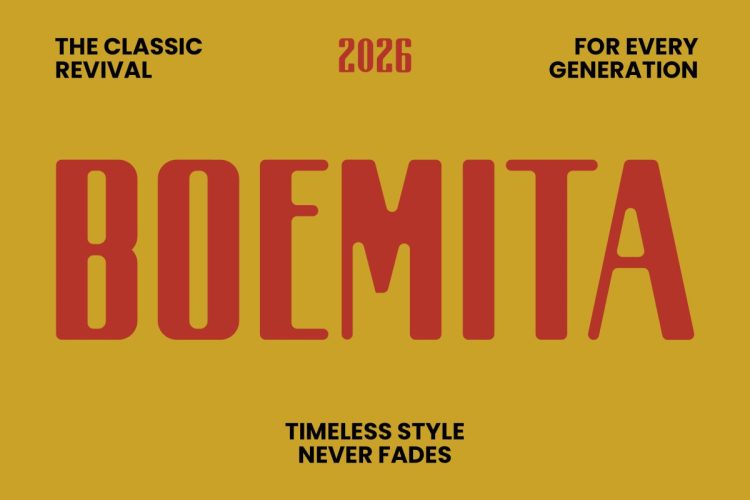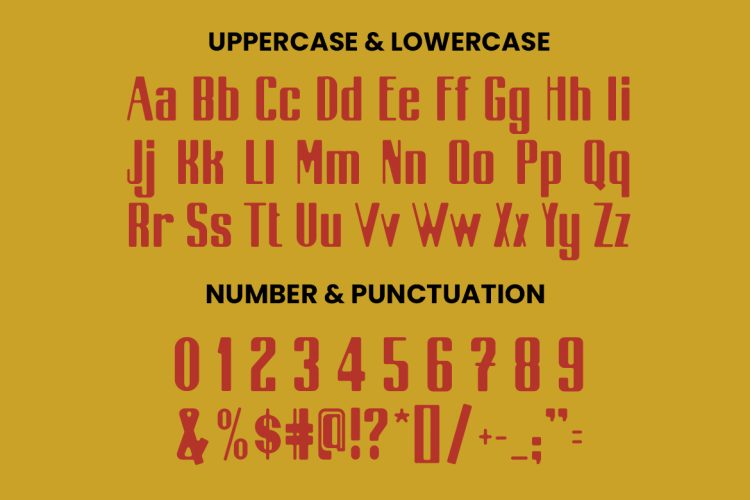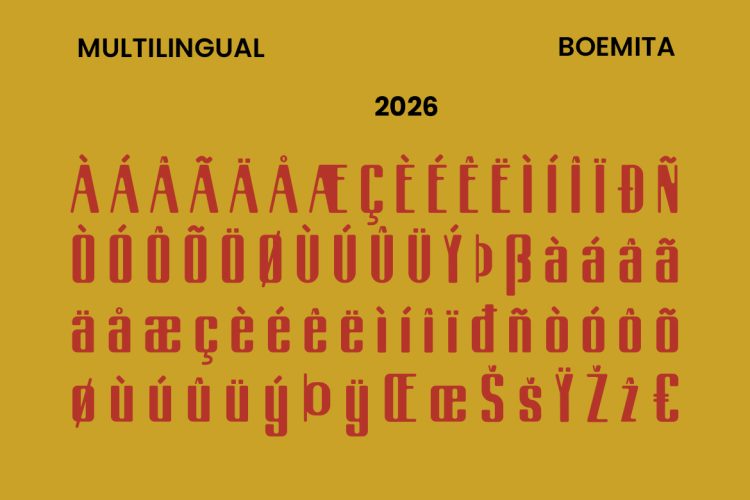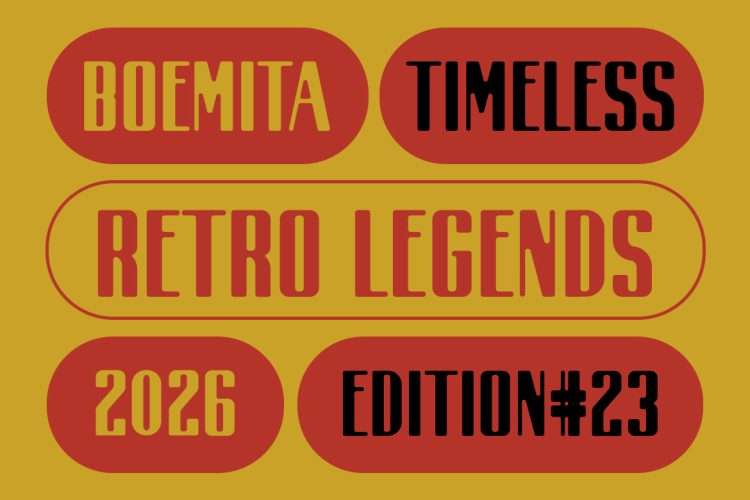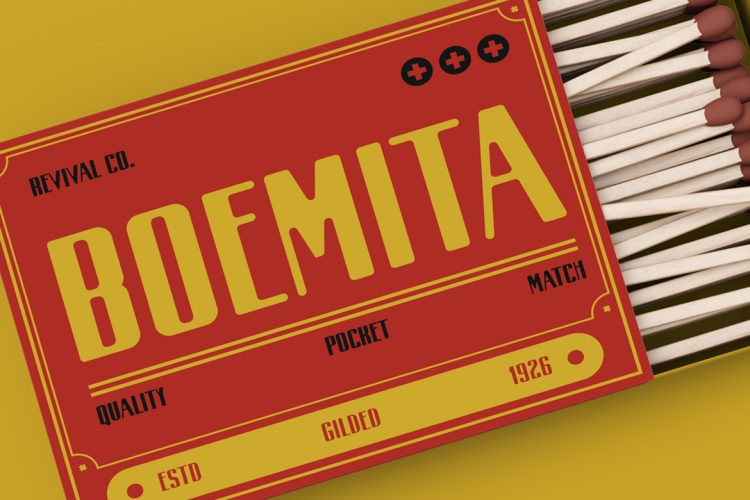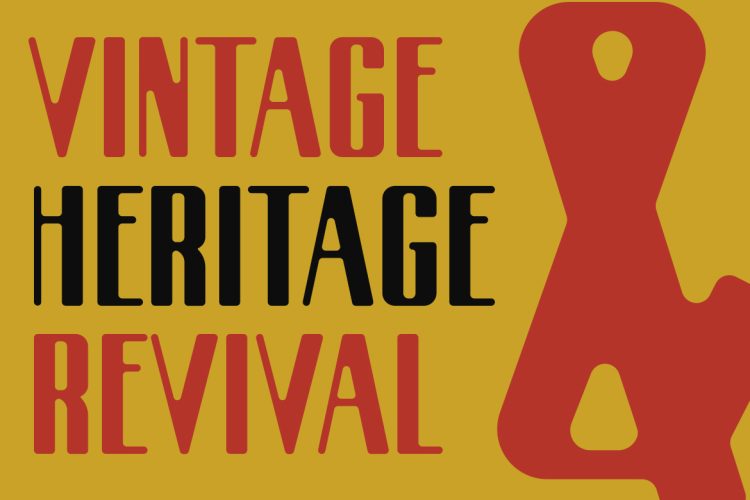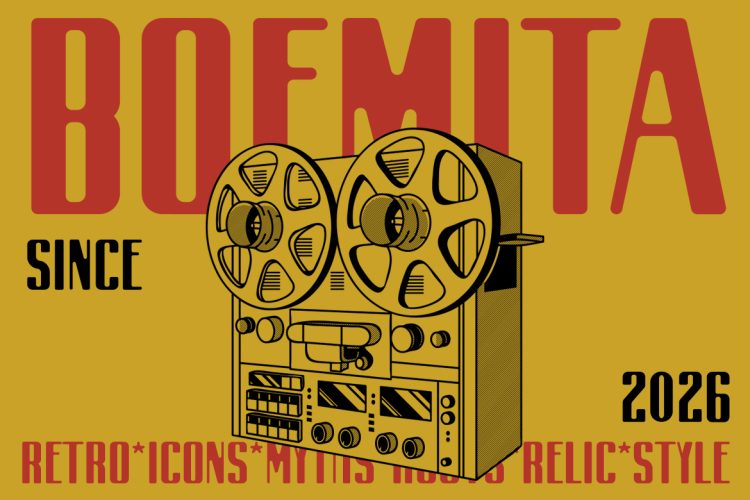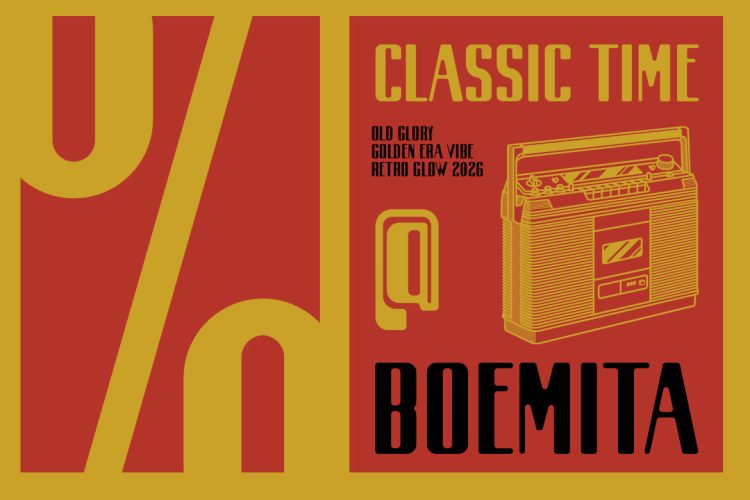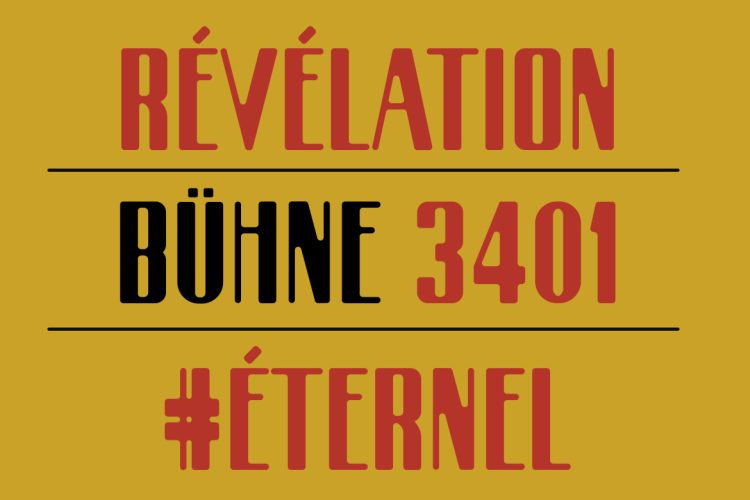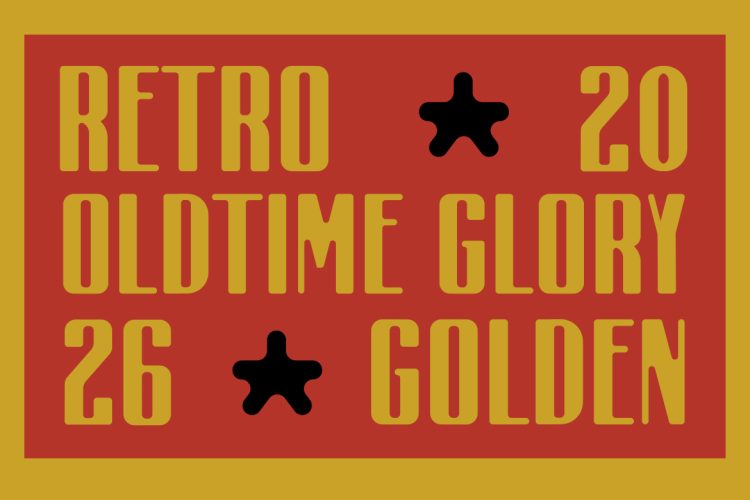
Vintage Font BOEMITA โ Old-School Character. Bold Revival. Endless Style.
Vintage Font BOEMITA brings classic retro energy into modern creative work. Inspired by vintage posters, old-school labels, and nostalgic print design, it features tall condensed letterforms with strong vertical strokes and a confident display presence. Moreover, its bold structure creates excellent contrast in headlines and short statements. As a result, every design feels nostalgic, expressive, and instantly recognizable.
Why You’ll Love It
Additionally, Vintage Font BOEMITA gives designers a flexible tool for building memorable retro visuals. Its condensed proportions save space while keeping headlines bold and readable. Whether you are creating a vintage brand identity, poster, label, or campaign, BOEMITA adds an authentic throwback feel. Furthermore, it works beautifully with badges, illustrations, numbers, and classic graphic elements. Meanwhile, Multilingual Support for 67 Languages makes it suitable for international projects. Therefore, your retro concepts can stay consistent across different markets.
Vintage Font BOEMITA Perfect For
Retro logos, vintage posters, record labels, movie-inspired graphics, classic packaging, coffee branding, brewery labels, automotive designs, event posters, editorial covers, badges, merchandise, signage, album artwork, and nostalgic advertising.
Bring Back the Classic
Finally, give your next project a bold dose of old-school character with Vintage Font BOEMITA. Not only does it capture the spirit of classic design, but it also brings strong visual impact to modern layouts. So, add BOEMITA to your collection and make every headline feel like a timeless revival.